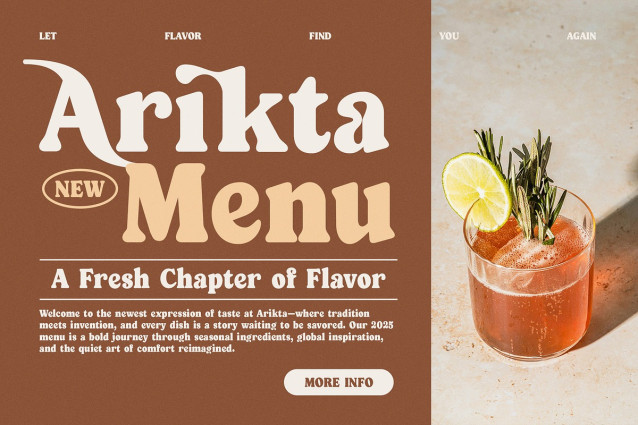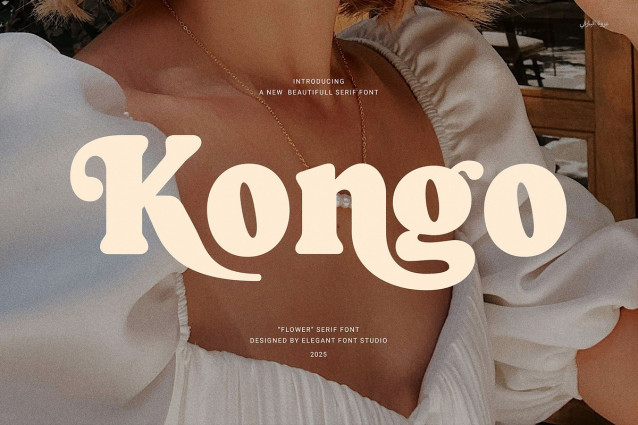
Kongo Font
Kongo Font – Elegant Serif Font is a modern, stylish serif typeface crafted to meet all branding needs. Its proportional letterforms and smooth functional ligatures bring harmony and elegance to every design. Whether you’re working on logos, websites, magazines, layouts, product packaging, or advertisements, Kongo elevates your project with a polished and professional look.
Designed for versatility, Kongo suits a wide range of industries, including boutiques, food brands, fashion, and corporate businesses. It balances readability and beauty, ensuring your message connects clearly with your audience in both print and digital formats. The carefully crafted ligatures add a refined touch that makes text flow naturally and attractively.